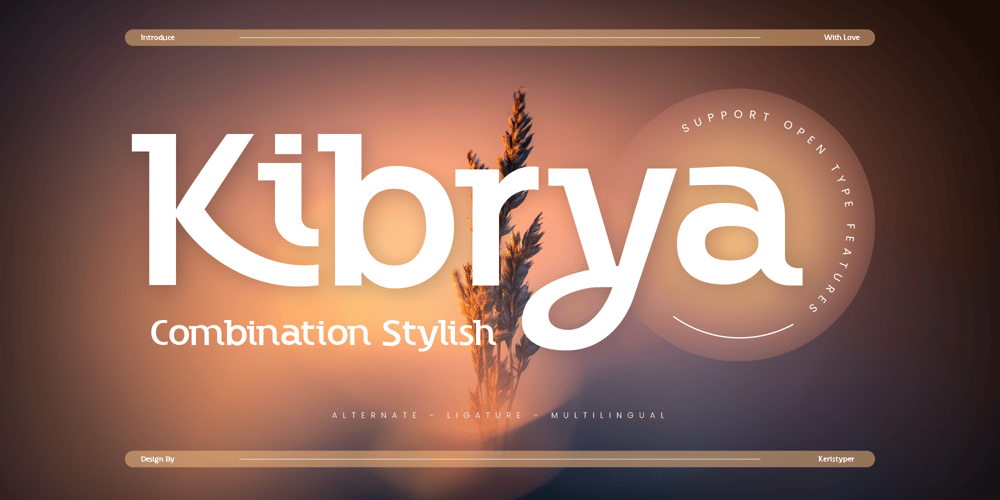
Kibrya
Kibrya font
Kibrya Font Family was designed by Tezar Tantular and published by Keristyper Studio. Kibrya contains 1 styles and family package options. Introducing Kibriya font! A playful blend of Serif and Sans-Serif, perfect for adding a touch of fun to your designs. This font is versatile and can be used in a variety of projects, from logos to posters to social media graphics. Its unique combination of classic and modern styles creates a fun and fresh look that will make your designs stand out. Get Kibriya font today and add some playful charm to your next project!Featured: Standard, Uppercase & Lowercase Numeral & Punctuation Multilingual : ä ö ü Ä Ö Ü ß ¿ ¡ Alternate & Ligature PUA encoded We recommend programs that support the OpenType feature and the Glyphs panel such as Adobe applications or Corel Draw, so you can use all the variations of the glyphs.Hope you enjoy our fonts!